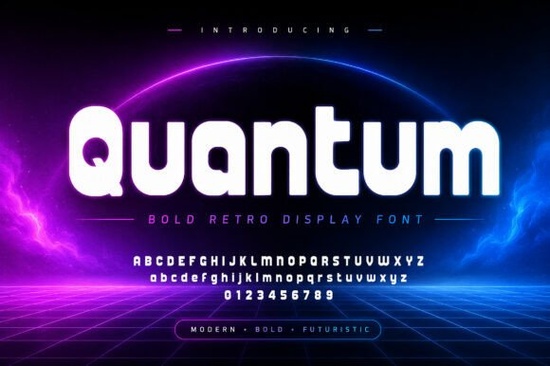
Finding the perfect typography can take up more time than creating the graphic itself. When you need a bold statement piece that stands out immediately, Quantum Font offers exactly what designers and hobbyists look for. It combines rounded shapes with a sleek, futuristic edge, making it suitable for projects that demand high energy without losing readability.
Why Choose a Bold Retro Style?
Retro aesthetics remain popular across various industries. They evoke nostalgia while still feeling contemporary enough for new platforms. Quantum bridges this gap effectively. Its thick letterforms provide presence on small screens, such as mobile app icons or YouTube thumbnails, while the rounded corners prevent the design from feeling too harsh.
This blend of old-school charm and modern geometry is ideal for brands wanting to look established yet innovative. Whether you are packaging a new beverage or creating a logo for a tech startup, the typeface delivers immediate visual impact. Unlike standard serif or sans-serif choices, display fonts require less background styling to carry the message.
Best Projects for This Typeface
Selling handmade goods on Etsy requires images that stop the scroll. Using this font for product titles adds personality to shirts, mugs, and wall art. It works particularly well when paired with simple illustrations or vector patterns, keeping the focus on the message.
- Gaming Assets: Create headers for Twitch overlays or esports team logos.
- Social Media Graphics: Instagram posts benefit from large, clear headlines created with this style.
- Tech Branding: The modern curves suggest innovation, fitting well with software or hardware marketing.
- Event Posters: Concert flyers and event invitations gain attention quickly with high contrast.
Comparing Similar Retro Options
Is This Font Right for Your Next Project?
If you value legibility combined with a fun character, this tool simplifies your workflow. It reduces the need for extensive kerning adjustments due to the pre-designed spacing built into the characters. Many users report saving hours on headline creation times when switching from standard library fonts.